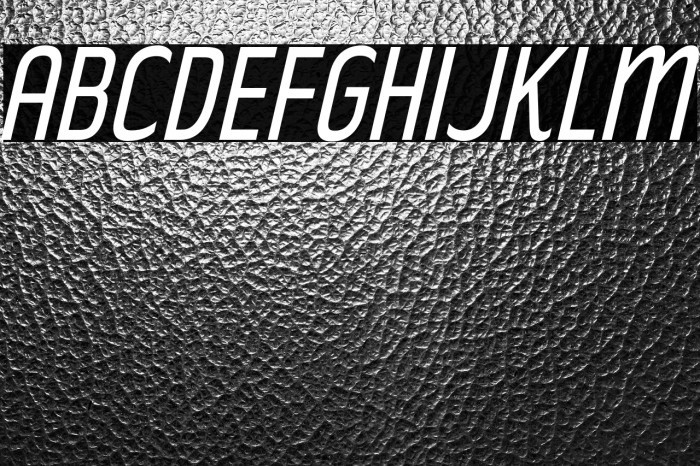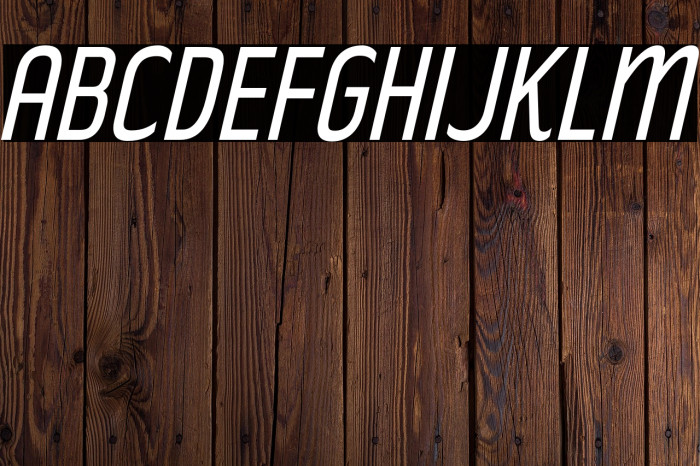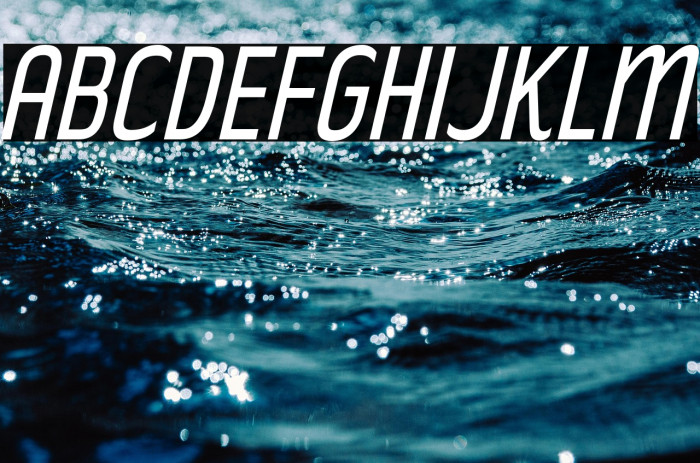
RakeslyBk-Italic Font
RakeslyBk-Italic Description
This font features a sleek, italicized design with a modern and dynamic feel. The characters are slightly condensed, giving it a streamlined appearance. The strokes are consistent in thickness, providing a medium contrast that enhances readability while maintaining a stylish look. The uppercase letters are tall and narrow, while the lowercase letters maintain a similar width, creating a cohesive and balanced aesthetic. The numerals are clear and distinct, making them suitable for various applications. Special characters are well-integrated, ensuring versatility in design projects.
| Proposed Projects | Ideal for branding, advertising, and editorial design where a modern and stylish appearance is desired. |